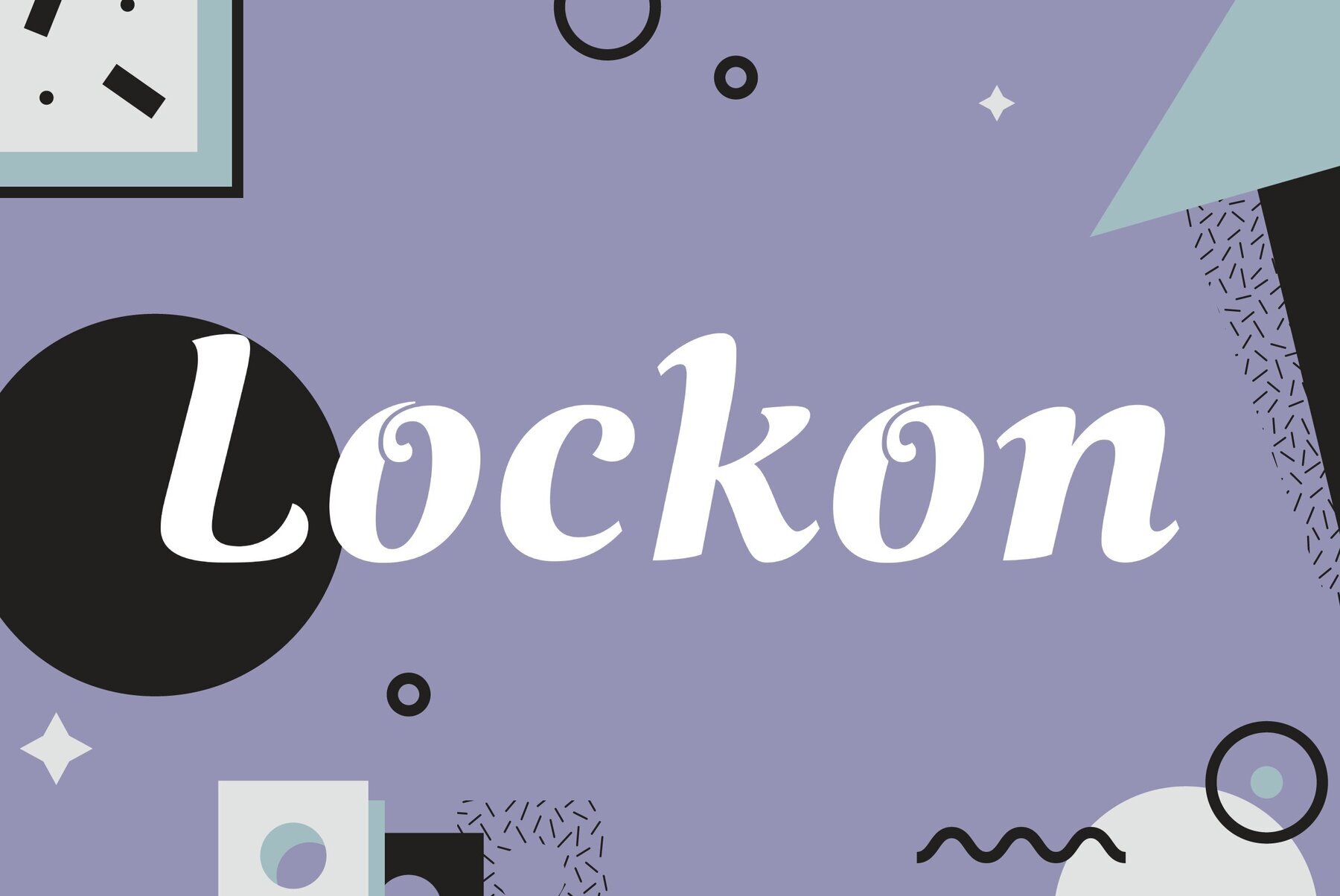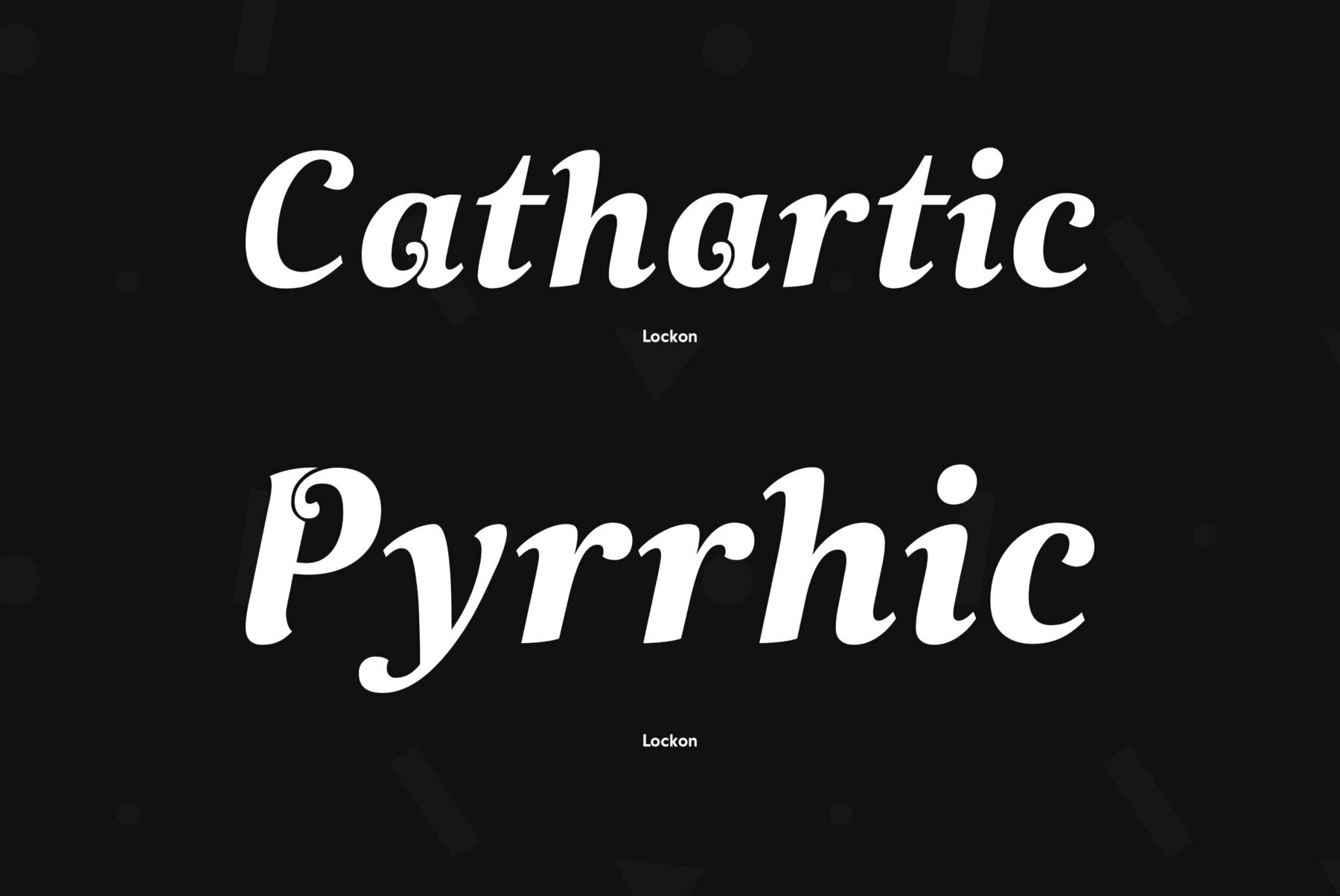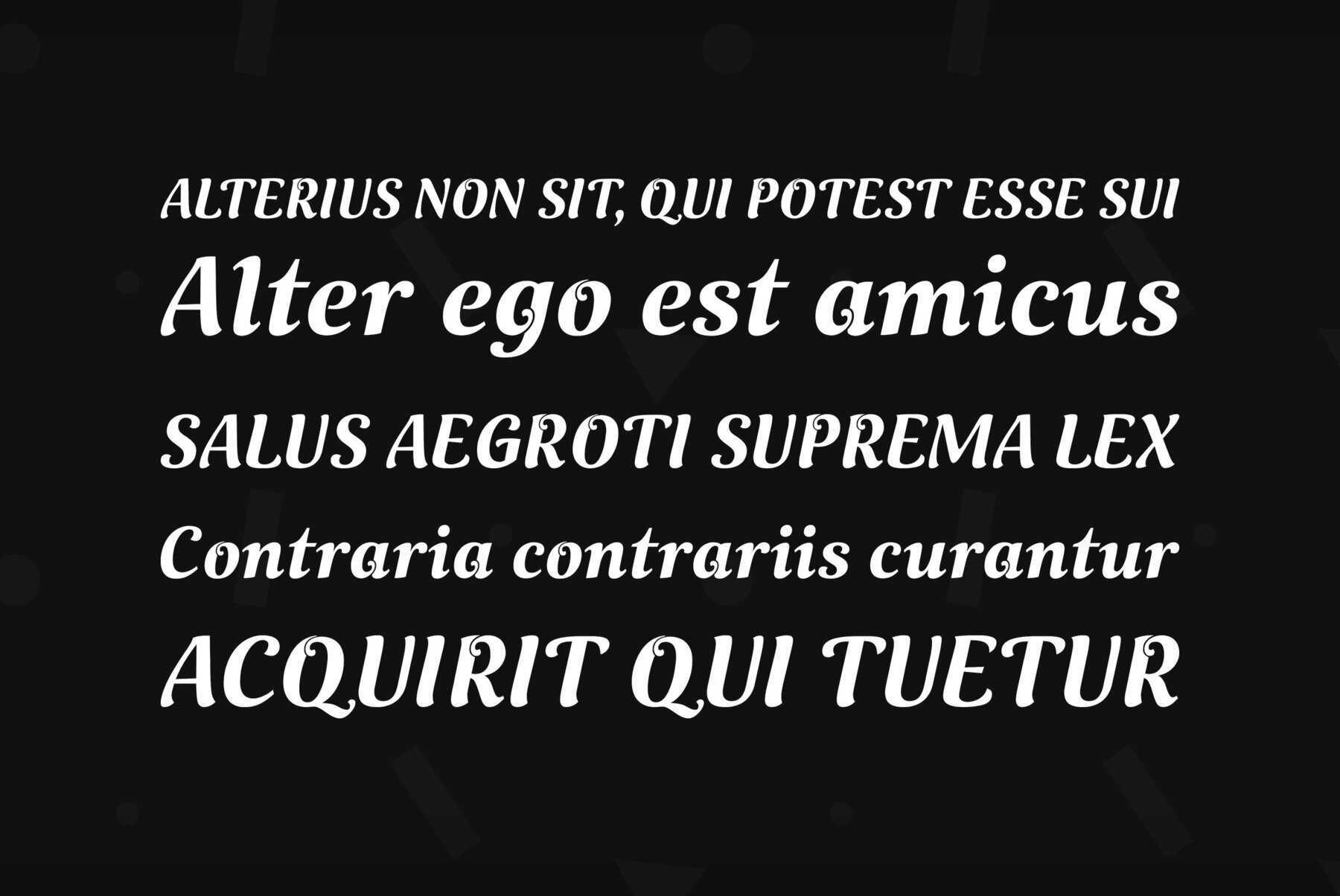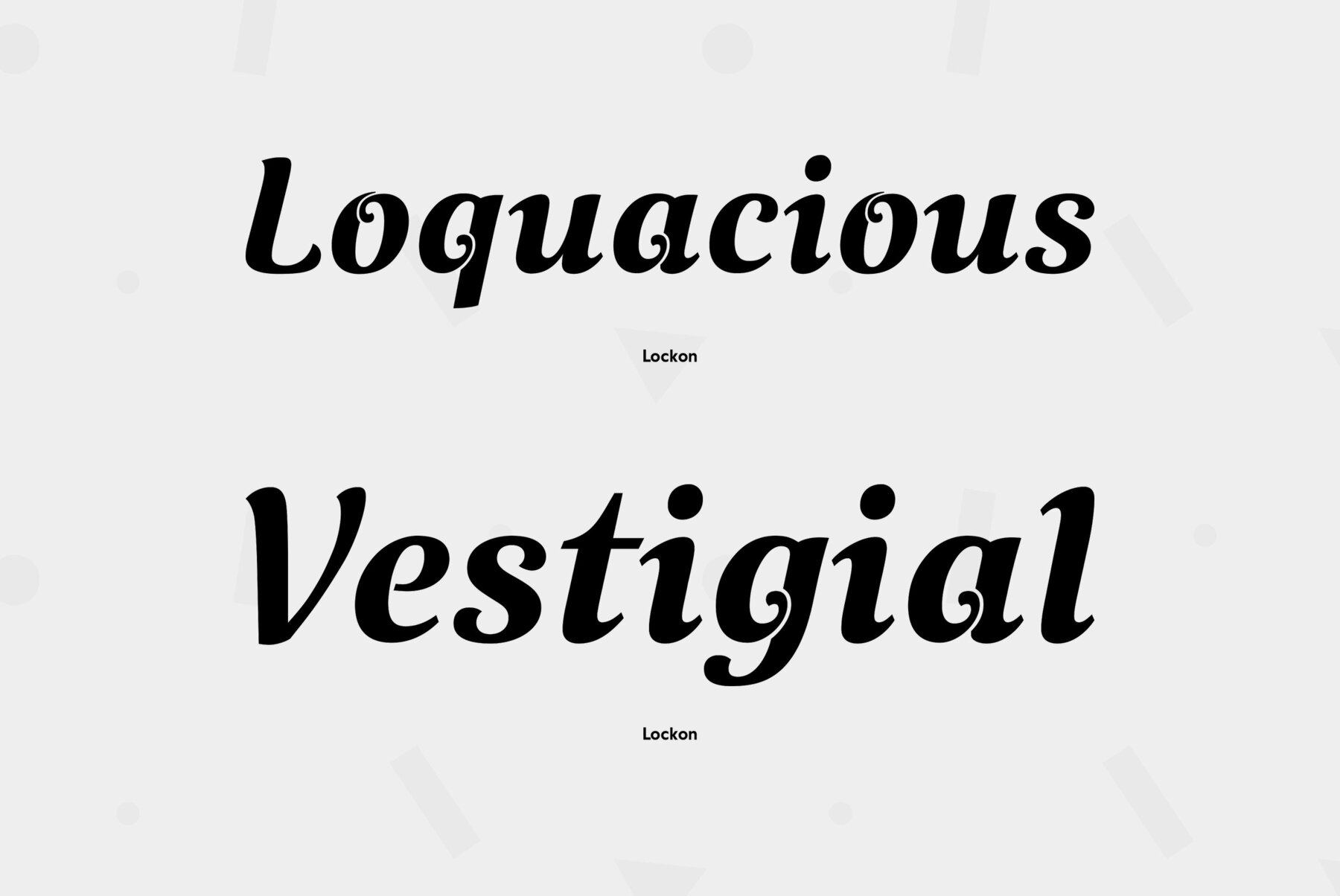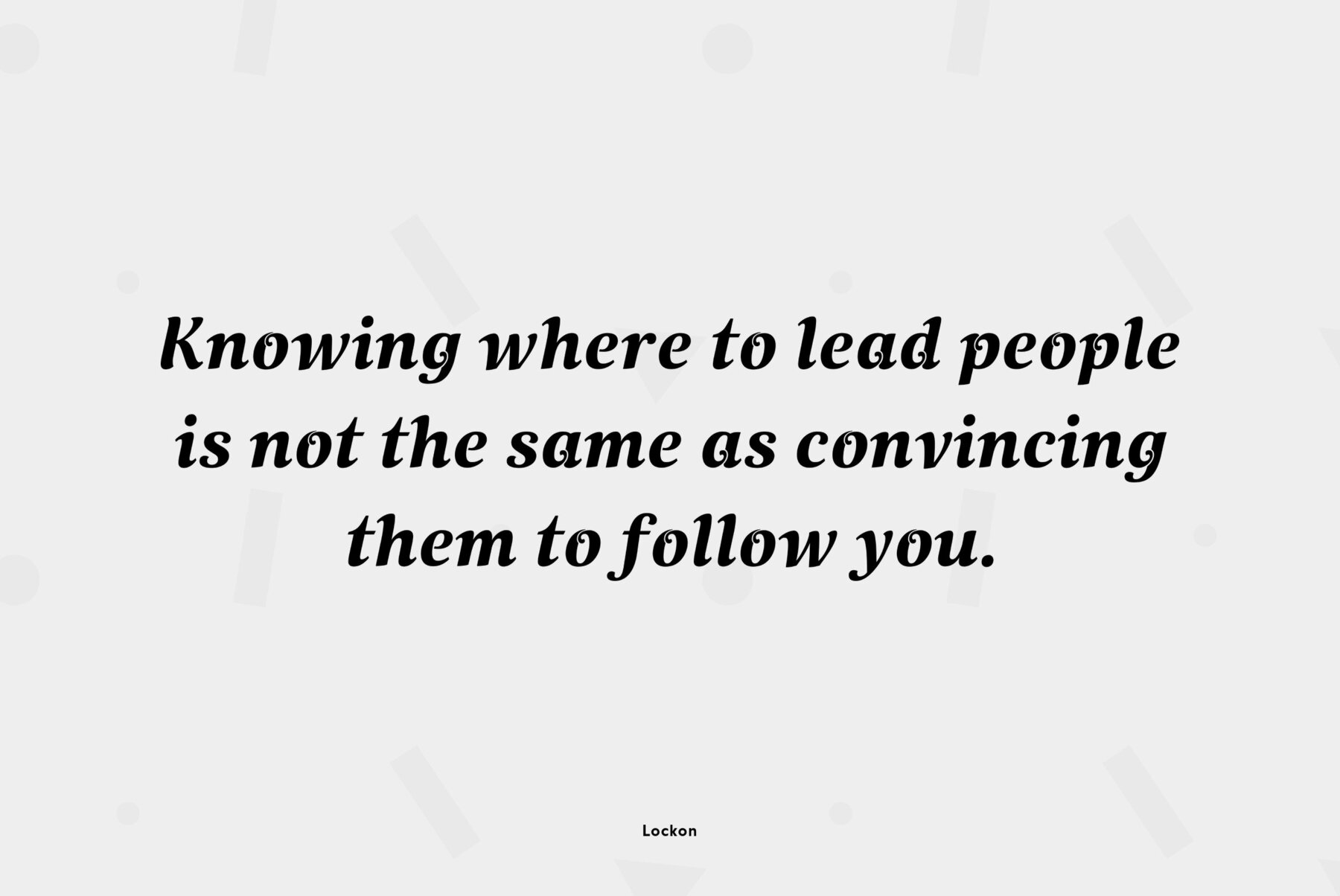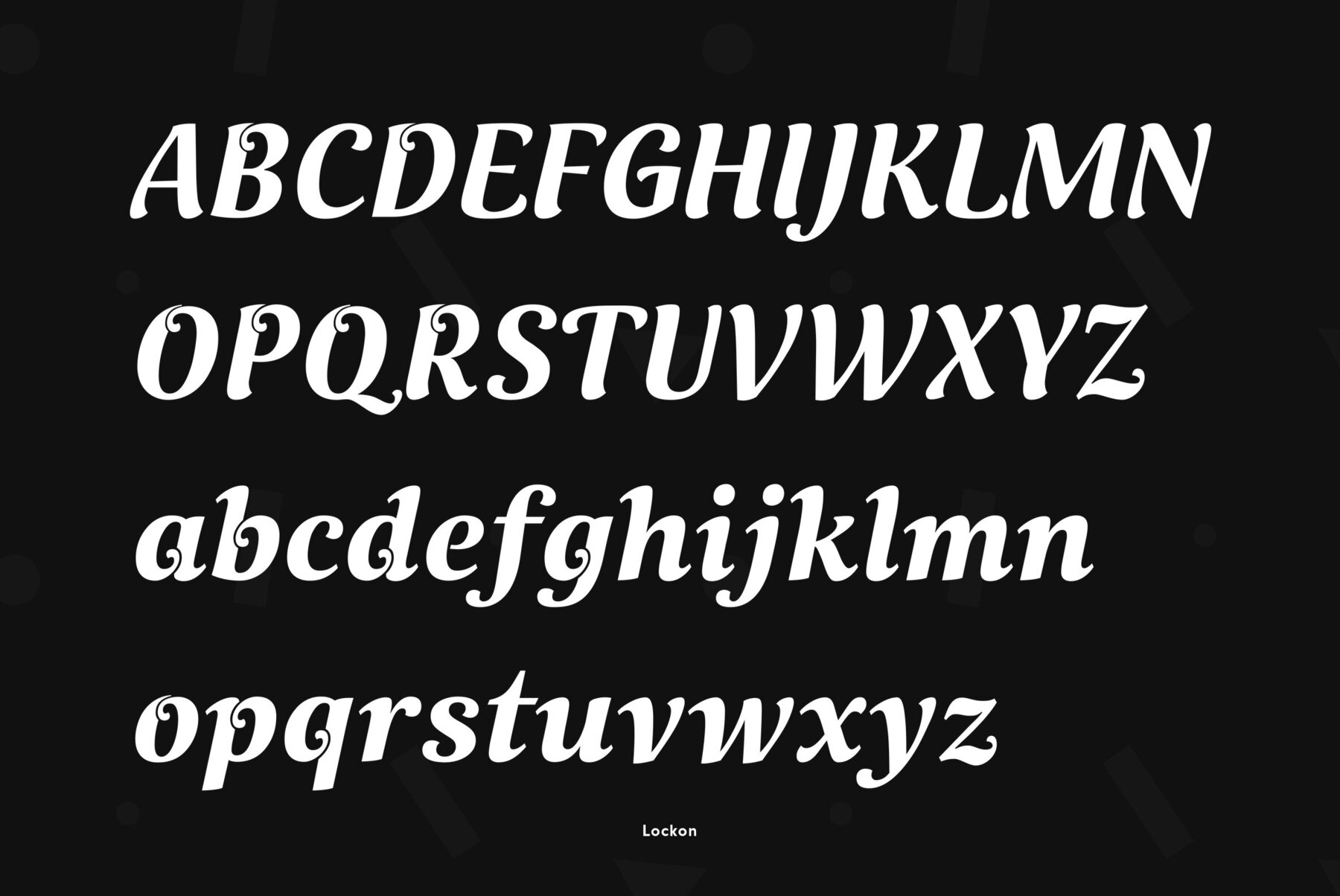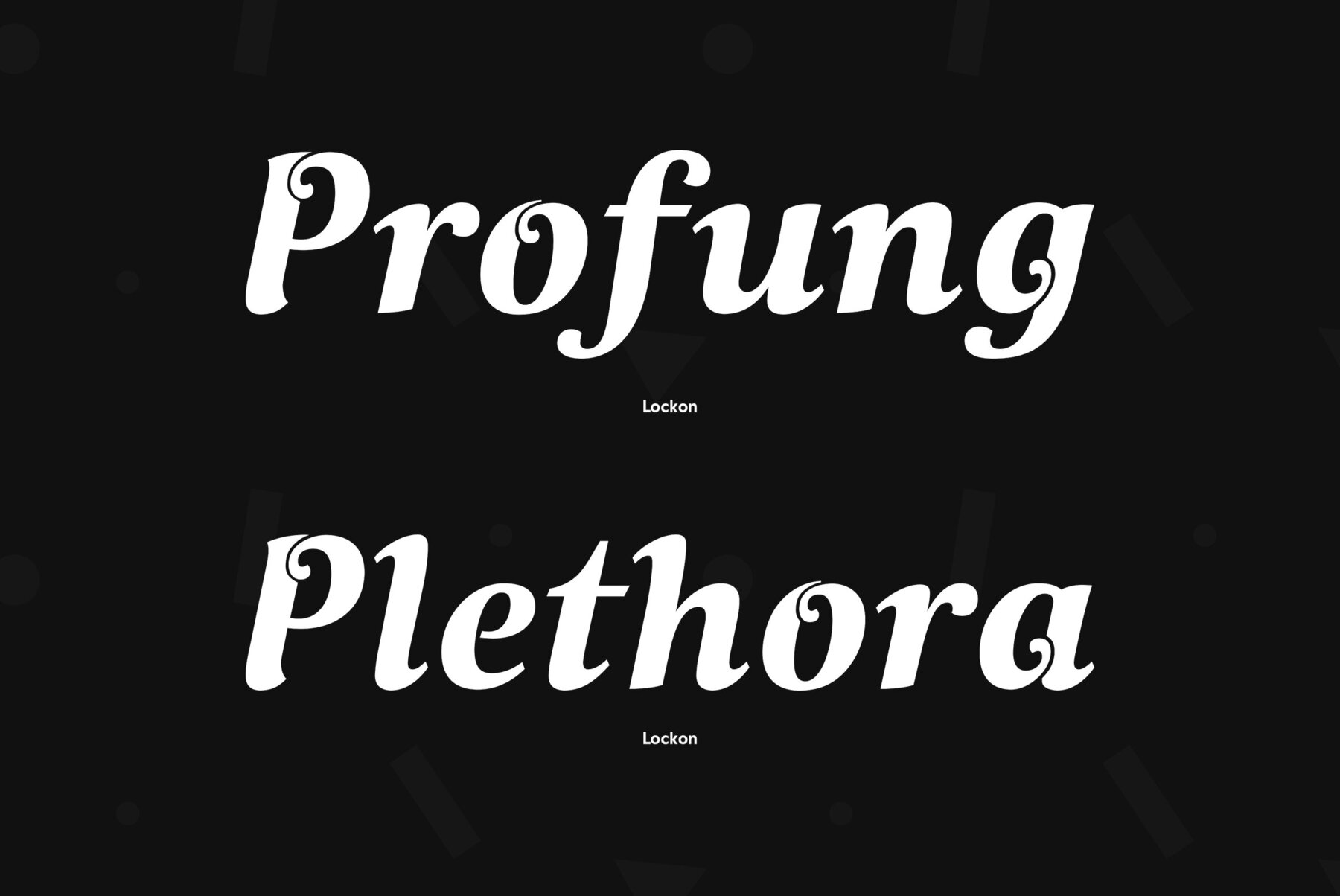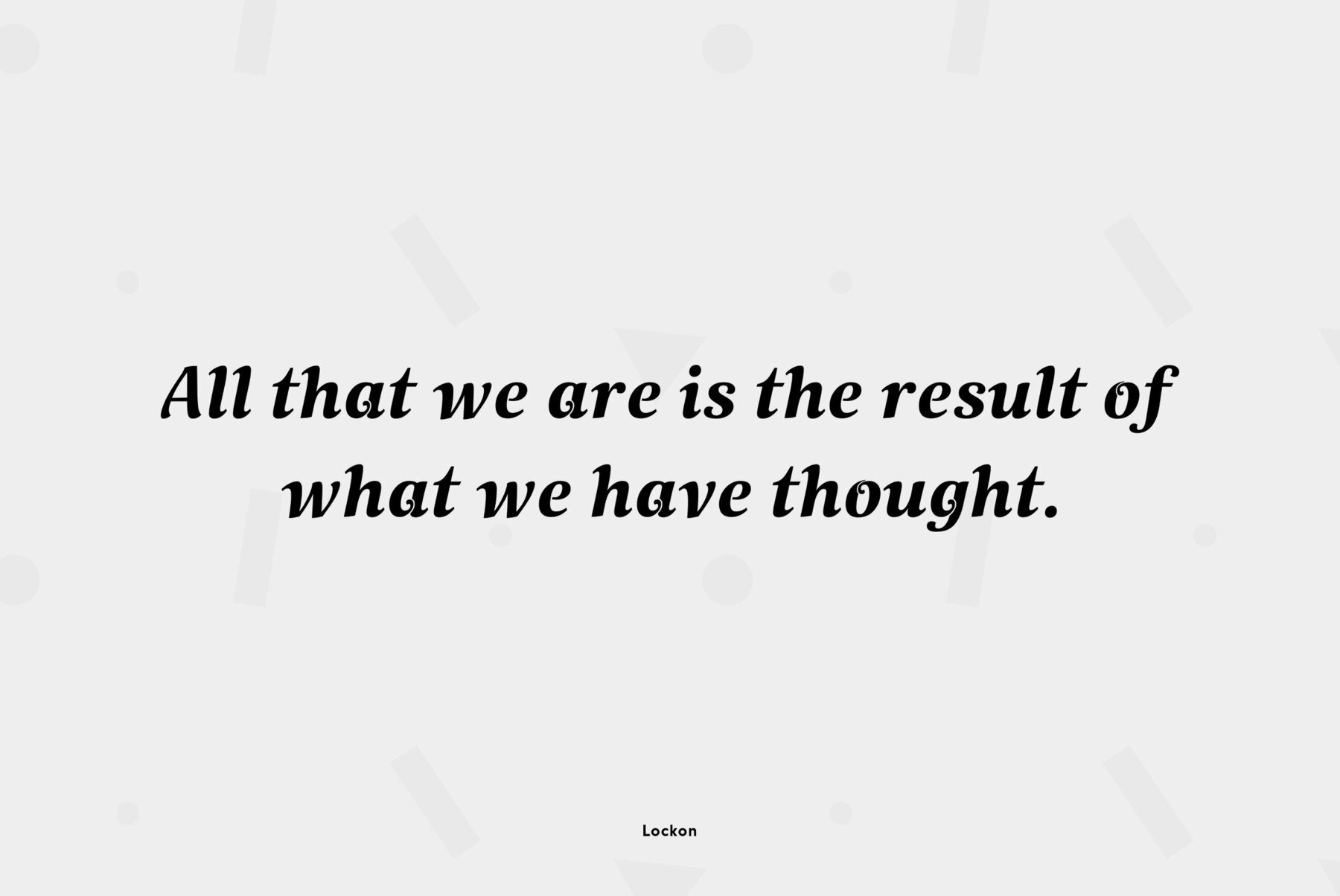
A decorative face with original swashes and curls in its letterforms. For use in advertising and display matter. The face designed by Natalya Vasilyeva and licensed by ParaType in 2007.